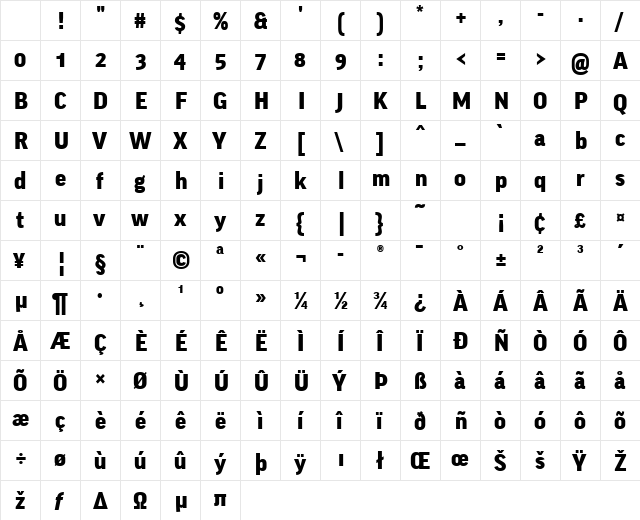
Complete GoodOSF-Black Regular glyph index. Displaying only characters natively supported by GoodOSF-Black Regular font.
GoodOSF-Black is a composed and adaptable typeface that performs quietly and consistently across a wide range of design contexts.
Pro Tip: Use GoodOSF-Black in both headline and body roles to test its range before committing to a single application.